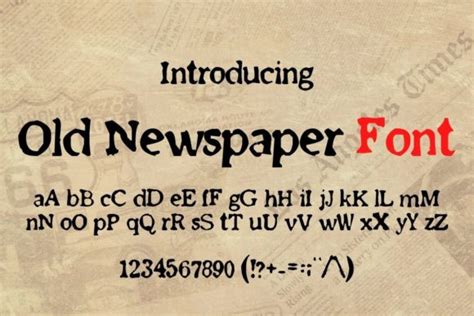
Timeless Type: Discovering Old Newspaper Font Names
Ever wondered about those classic, captivating fonts that graced the pages of old newspapers? The fonts used in old newspapers carry a certain charm and historical significance , instantly transporting us back in time. Identifying these fonts can be a fascinating journey for designers, history buffs, and anyone with an appreciation for typography. In this article, we’ll delve into the world of old newspaper fonts, exploring their characteristics, common names, and where you might find them today. So, guys, let’s get started and uncover the secrets behind these timeless typefaces!
Unveiling the Characteristics of Old Newspaper Fonts
When diving into the world of old newspaper fonts, it’s essential to understand the characteristics that define them. These fonts were designed with specific constraints in mind, primarily the limitations of printing technology and the need for readability in narrow columns. Newspaper fonts usually prioritized clarity and efficiency over elaborate designs. Serif fonts were the norm, as the serifs (the small strokes at the end of letters) helped guide the eye across the page, improving readability in long blocks of text. Some common characteristics include:
• Serif Typefaces: As mentioned, serifs were crucial. Common styles included bracketed serifs and hairline serifs, each offering a slightly different aesthetic while maintaining legibility.
• High Contrast: Many old newspaper fonts featured high contrast between thick and thin strokes. This contrast made the letters more distinct, especially in smaller point sizes.
• Narrow Widths: To fit more text into the tightly packed columns of a newspaper, these fonts often had condensed or narrow letterforms.
• Robust Design: Newspaper printing could be rough, so fonts needed to be durable and resistant to ink spread. Simpler, more robust designs held up better under these conditions.
• Readability: Above all else, readability was key. Fonts were chosen and designed to ensure readers could easily scan and comprehend the news, even in less-than-ideal printing conditions.
Understanding these characteristics is the first step in identifying and appreciating the fonts that brought us the news of yesteryear. By recognizing these elements, you can start to distinguish classic newspaper fonts from more modern typefaces and gain a deeper appreciation for the history of typography.
Prominent Old Newspaper Font Names to Know
Now that we understand what to look for, let’s explore some prominent old newspaper font names. These fonts have stood the test of time and continue to influence typography today. While pinpointing the exact font used by a specific newspaper in a particular year can be challenging, several typefaces were widely adopted and became synonymous with the newspaper industry.
• Linotype faces: Linotype was a hot metal typesetting system used in newspaper production from the late 19th century until the widespread adoption of digital typesetting in the late 20th century. Several fonts were created for use in Linotype machines.
• Ionic No. 5: A workhorse of newspaper typography, Ionic No. 5 was designed for Linotype and is celebrated for its exceptional readability. Its robust serifs and slightly condensed letterforms made it ideal for the tight columns of newspapers. It remains a popular choice for body text even today.
• Century: The Century family of fonts, including Century Old Style and Century Schoolbook, were frequently used in newspapers. Designed for clarity and legibility, Century fonts offered a balanced and traditional appearance that appealed to a wide range of publications.
• Franklin Gothic: While primarily a sans-serif typeface, Franklin Gothic found its way into newspaper headlines and display settings. Its bold, assertive letterforms commanded attention and provided a strong visual presence.
• Bodoni: Some newspapers, particularly those with a more sophisticated design, utilized Bodoni for headlines and display text. Its high contrast and elegant serifs added a touch of class to the printed page.
• ** টাইমস νέα Ρώμη:** A standard for newspaper text, Times New Roman offers great readability and a compact design. The font’s effectiveness in fitting numerous words onto a page while maintaining clarity made it a mainstay in the newspaper industry for many years.
By familiarizing yourself with these font names and their characteristics, you’ll be better equipped to recognize them in historical newspapers and appreciate their contribution to the world of journalism. These fonts represent a legacy of craftsmanship and a commitment to delivering information clearly and effectively.
How to Identify Old Newspaper Fonts
Identifying old newspaper fonts can be a bit like detective work, but it’s a rewarding process that enhances your understanding of typography and design history. Here are some tips and tools to help you on your font-finding journey:
So, guys, whether you’re designing a website, creating a logo, or simply looking to add a touch of classic elegance to your projects, consider incorporating vintage newspaper fonts. Their timeless charm and historical resonance are sure to captivate your audience and transport them back to a bygone era. Keep exploring, keep experimenting, and keep the spirit of these classic typefaces alive!